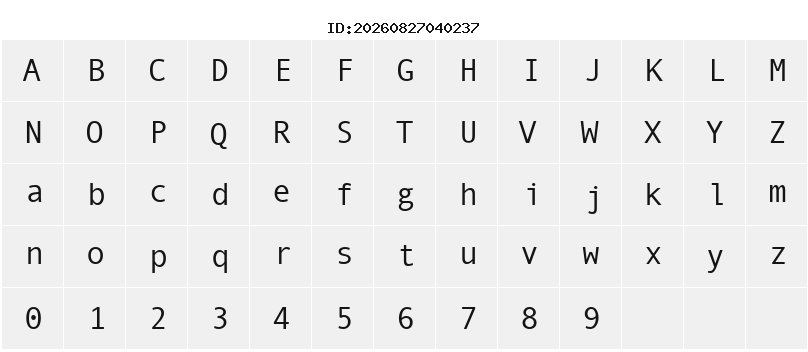
706-CAI978 Preview
• Font Name: 706-CAI978
• Font ID: 706-CAI978:Version 2.00
• Full Font Name: 706-CAI978
• Version: Version 2.00 November 11, 1998
• PostScript Name: 706-CAI978
• Character Count: 654
• Designer: Steven R. Matteson
• Manufacturer: Monotype Typography
• Description: Andale Monospaced is a highly legible monospaced font.
About 706-CAI978.ttf
706-CAI978.ttf is a modern, elegant sans-serif font designed for ultimate readability and visual harmony. Perfect for branding, headlines, web design, and print materials.